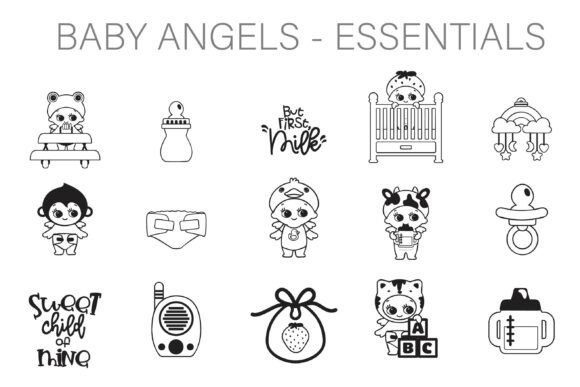
Welcoming the Sweetness of Babyhood with Baby Angels Essentials Dingbats Font
As a designer, there’s something special about capturing the essence of early childhood in your work. Whether it’s a digital scrapbook, milestone card, or nursery decor, you want to convey the love and care that goes into these precious moments. For me, it all starts with a font that speaks to the heart – and that’s where Baby Angels – Essentials comes in.
This adorable dingbat font is a treasure trove of nursery must-haves, featuring sweet icons and phrases that will make your designs feel like a warm hug. With its consistent, bold-line aesthetic and high-contrast details, Baby Angels – Essentials is an extraordinary choice for designers looking to add a sentimental touch to their work. Whether you’re creating baby announcement stationery, digital scrapbooking, or artisanal nursery products, this font is sure to deliver a sense of handcrafted warmth and beauty.
Baby Angels Essentials Dingbats Font Features
- Unique Characteristics: Whimsical and playful design elements, including baby-themed symbols and ornaments, perfect for nursery decorations, baby shower invitations, and other related designs
- Font Style: Hand-drawn, vector-based design with a soft, delicate appearance
Baby Angels Essentials Dingbats Font Review
As a designer, I was excited to dive into the Baby Angels Essentials Dingbats Font, and overall, I found it to be a sweet and playful addition to any project ✨. The font’s character set is extensive, covering various symbols, icons, and dingbats that can add a whimsical touch to designs.
The font’s design is clean and well-executed, making it easy to read and use in a variety of contexts. I particularly enjoyed the way the font handles intricate details and patterns, which can be challenging to achieve with other fonts ✨.
- ⚠️ Limited language support: The font only includes English characters, which might be a limitation for projects that require multilingual support.
- ⚠️ Limited script support: The font does not include any script characters, which might be a challenge for projects that require them.
Overall, I think the Baby Angels Essentials Dingbats Font is a great choice for designers looking to add a touch of whimsy to their projects. While it has some limitations, its unique character set and clean design make it a valuable addition to any design toolkit ✨.
The Baby Angels Essentials Dingbats Font is ideal for:
- Custom graphics and logos
Tips: Use the font to add a touch of whimsy and playfulness to your designs, and experiment with different font sizes and colors to create visual